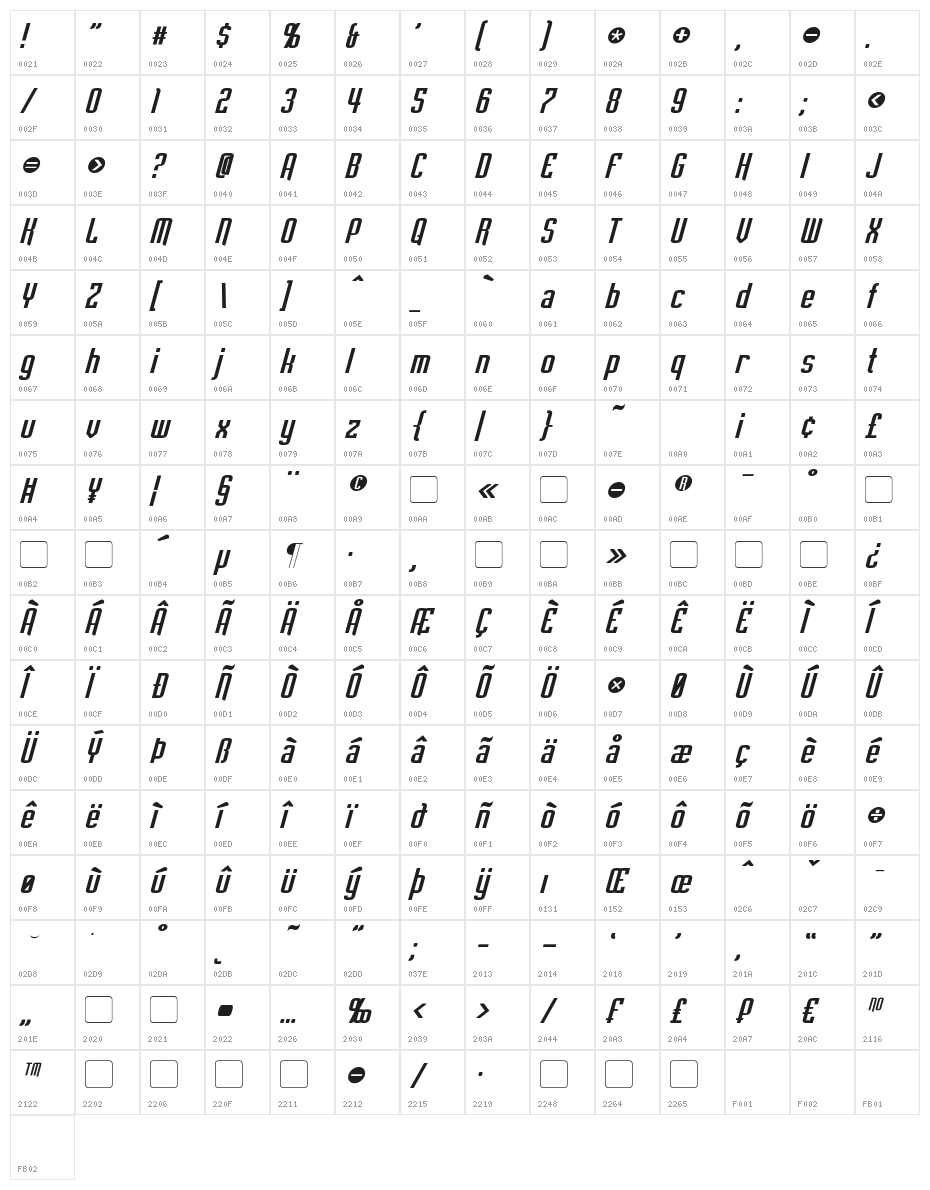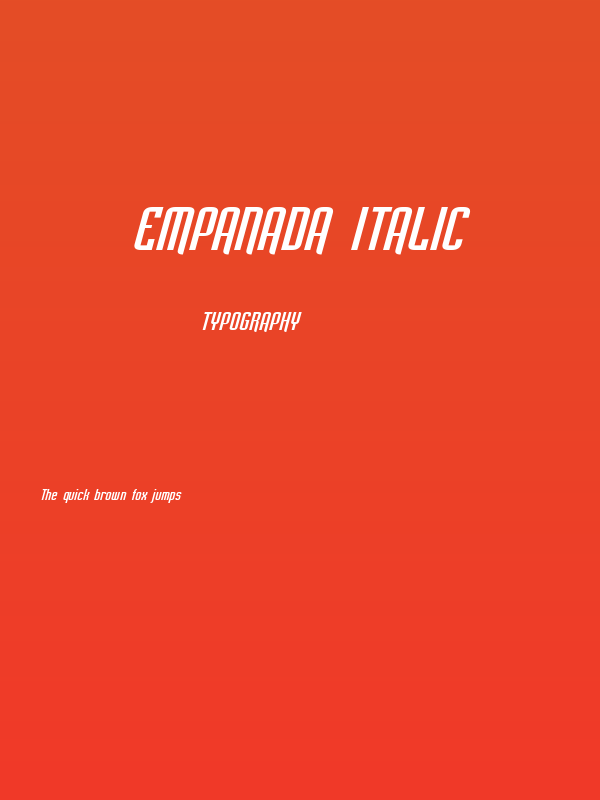
Empanada Italic Font
Empanada Italic Description
This font features a bold and dynamic italic style, characterized by its slanted and elongated letterforms. The strokes are consistent in thickness, providing a uniform appearance across all characters. The uppercase letters are tall and narrow, while the lowercase letters maintain a similar width, creating a cohesive look. The numerals are distinct and easy to read, with a modern flair. Special characters are designed to complement the overall style, adding a touch of sophistication. This font's energetic and sleek design makes it suitable for a variety of creative applications.
| Proposed Projects | Ideal for branding, advertising, posters, and modern editorial design. |